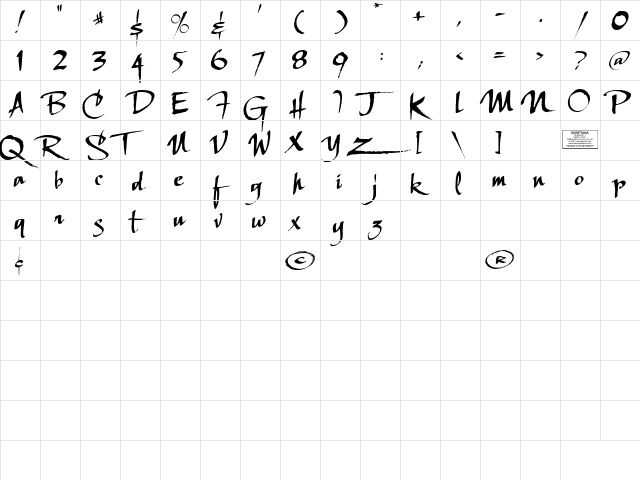
LHFScriptanaREG Regular
Design Context for LHFScriptanaREG Typeface
LHFScriptanaREG flows with the natural rhythm of handwritten lettering, making it ideal for designs that call for warmth and personal expression.
Font Pairing: Combine LHFScriptanaREG with a simple geometric sans for maximum contrast — the tension between flowing curves and clean structure is a classic typographic pairing.
Pro Tip: Pair LHFScriptanaREG with a clean sans-serif for supporting text. The contrast between fluid script and geometric structure creates an elegant typographic hierarchy.